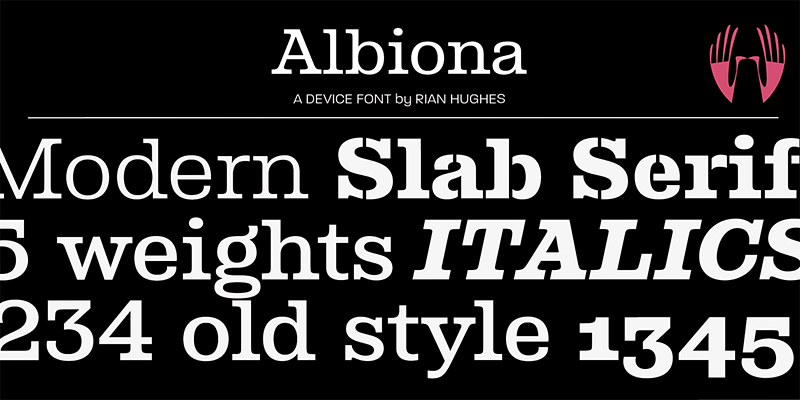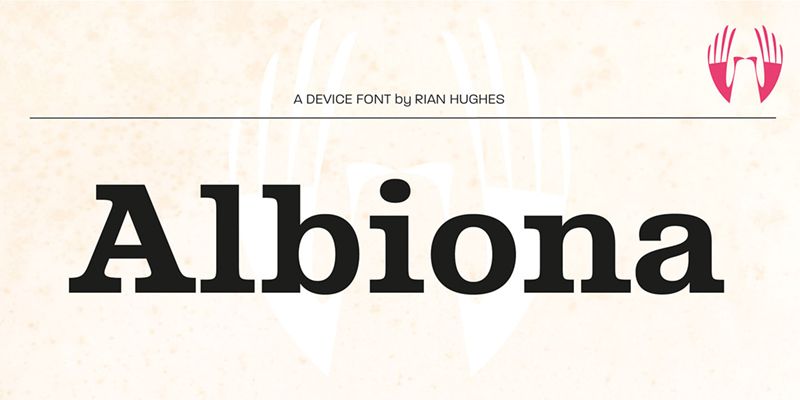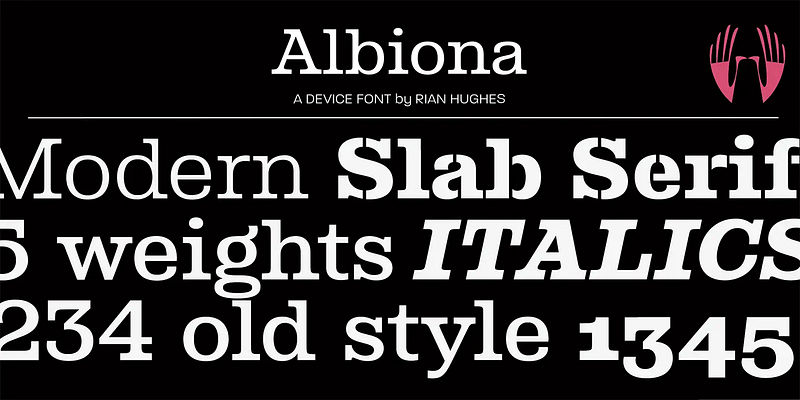
A slab-serif family with elegant inwardly-curved strokes. Includes italics, old-style and tabular numerals. A modernisation of classics such as Clarendon. Suitable for extended text and headlines.
Type, design and imagery by English illustrator and typographer Rian Hughes.